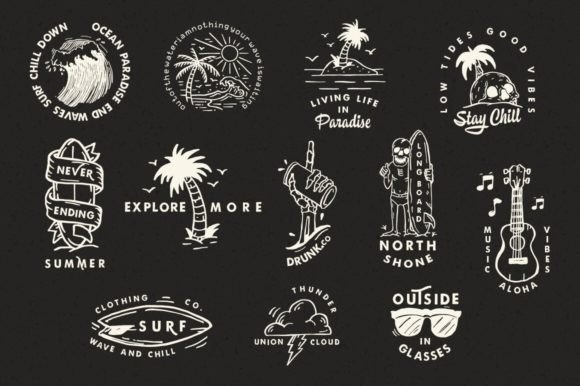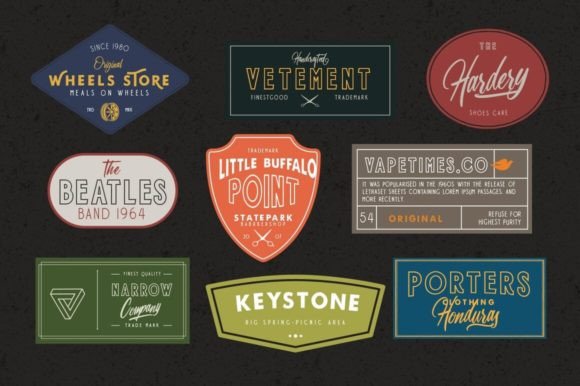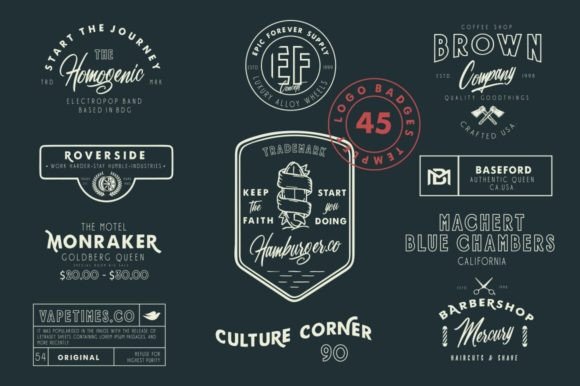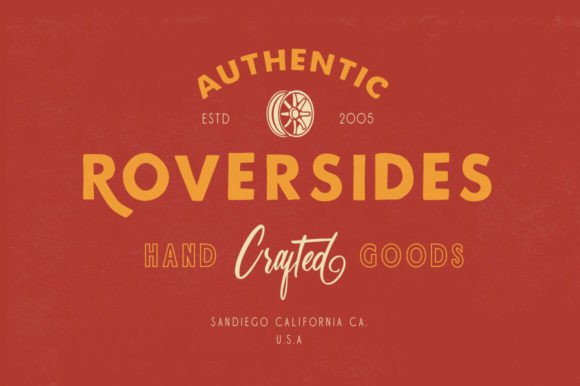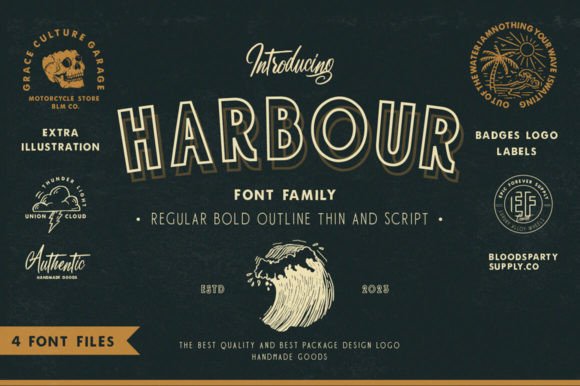
Introducing Harbour: The Ultimate Font Family for Creative Designs
We are thrilled to introduce Harbour, our latest font family typeface that is set to revolutionize the world of design. Harbour is a versatile and stylish font family that consists of three unique variations: Script, Sans Serif, and Outline Sans Serif. Whether you’re a designer, craftsperson, or simply a creative enthusiast, Harbour is the perfect choice for your next project.
What Makes Harbour Special?
Harbour is not just another font family; it’s a comprehensive design solution that offers a range of features to make your designs stand out. Here are some of the key features that make Harbour the ultimate font family:
- Script Font with Ligatures and Stylistic Alternates: The script font in Harbour comes with ligatures and stylistic alternates, which allow you to create unique and personalized designs. Ligatures enable you to combine letters and create a flowing, connected look, while stylistic alternates provide alternative letterforms to add more character to your text.
- Multiple Font Variations: Harbour offers three distinct font variations: Script, Sans Serif, and Outline Sans Serif. This range of options allows you to experiment with different styles and choose the one that best suits your design needs.
- High-Quality Typography: Harbour is designed with precision and attention to detail, ensuring that your text looks crisp, clear, and professional. The font family is optimized for both digital and print applications, making it perfect for a wide range of design projects.
Harbour is an incredibly versatile font family that can be used for a multitude of design projects. Here are some of the ways you can use Harbour to elevate your designs:
- Wedding Invitations: Create beautiful and elegant wedding invitations with Harbour’s script font, complete with ligatures and stylistic alternates.
- Posters and Flyers: Use Harbour’s sans serif font to create bold and eye-catching posters and flyers that grab attention.
- Apparel Design: Design stunning apparel with Harbour’s outline sans serif font, perfect for creating unique and stylish t-shirts, hoodies, and more.
- Logos and Branding: Establish a strong brand identity with Harbour’s versatile font family, suitable for logos, business cards, and other branding materials.
- Print Ads and Digital Ads: Use Harbour to create visually appealing print ads and digital ads that capture your audience’s attention.
- Promotion Products: Design promotional products such as brochures, catalogs, and banners with Harbour’s high-quality typography.
Why Choose Harbour?
With so many font families available, why choose Harbour? Here are some compelling reasons to make Harbour your go-to font family:
- Unique and Stylish: Harbour offers a fresh and stylish design that’s sure to make your projects stand out.
- Versatile: With three font variations and a range of features, Harbour can be used for a wide range of design projects.
- High-Quality: Harbour is designed with precision and attention to detail, ensuring that your text looks professional and polished.
In conclusion, Harbour is an exceptional font family that offers a unique combination of style, versatility, and high-quality typography. Whether you’re a designer, craftsperson, or simply a creative enthusiast, Harbour is the perfect choice for your next project. With its script font, sans serif font, and outline sans serif font, Harbour is sure to become your go-to font family for all your design needs.